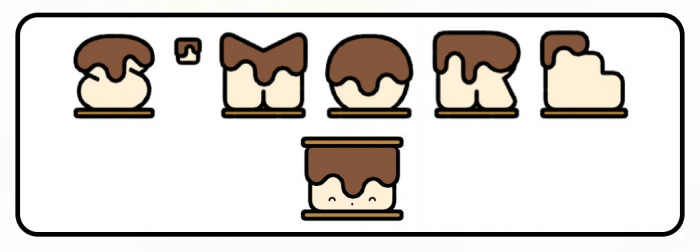
Brilliant! And now I want s'mores...
Wow!
Hmmm, super-sweet! Congrats!
Not sure what it is, a capuccino, a cake :) But it's beautiful.
This is a flan or chocolate in plastic glass?
kassymkulov & JeycoMonge, it's a s'more :)
Very yummy
I love this font and s'mores!
Delicious font!
This is so adorable! Like the quirky 'E' and 'F' staircase shapes, even amplifying the playfulness Babyteeth had with marshmallows and chocolate drizzles.
I also applaud you for figuring out how to execute, or in this case, smore-ify the pound key in between those hatches! Nice work!
Faux icing, I would be remiss if I didn't try to include a little deco-esque element in the font at the very least. It proved a fun challenge :)
But...what's is a s'more can say it that or share a image?
@JeycoMonge - Typically, a "s'more" treat conststs of a warmed/toasted marshmallow and a flat piece of chocolate, both sandwiched between two graham crackers.  Often enjoyed around campfires.
In this font, the chocolate top is dripping/melting over the marshmallow middle, and the base is the graham cracker.  The smiley face at the bottom of the sample represents a 'true' "s'more" construction: graham cracker top, chocolate, marshmallow, graham cracker bottom.
Definitely a 10/10, it looks so good, I WANT TO EAT THE SYMBOLS >:D.
How to get the bottom glyph
Jerick_Torres, the bottom glyph is not a part of the font, rather it was created for a comic account on another corner of the internet "mochi.university"
we need s'more of this, good job!
Yummy font
:P
Btw the hashtag's CRAZY!
So Sweet
Delicious and heart-warmingly cute! 999/10
bombo
amazing!
youer color blind
its brown and white
yummy
so cool!
Yummy
I like s'more nom nom nom!